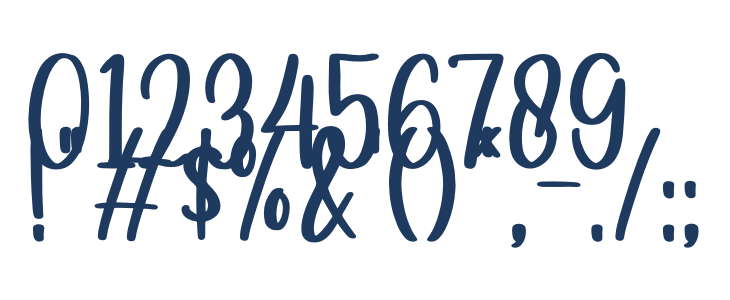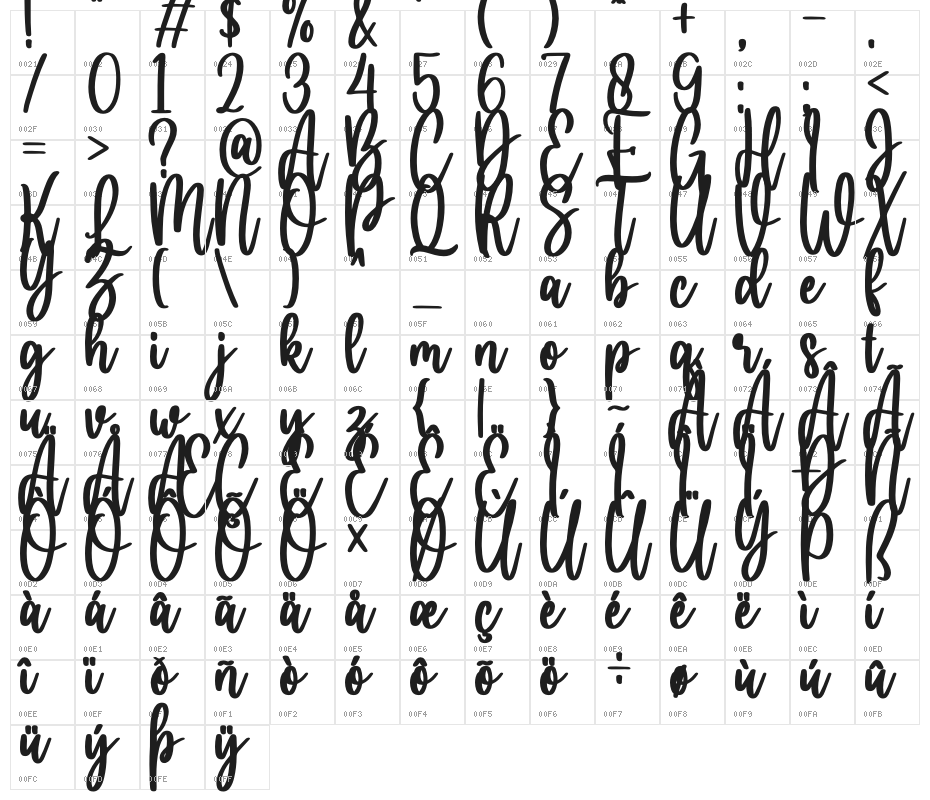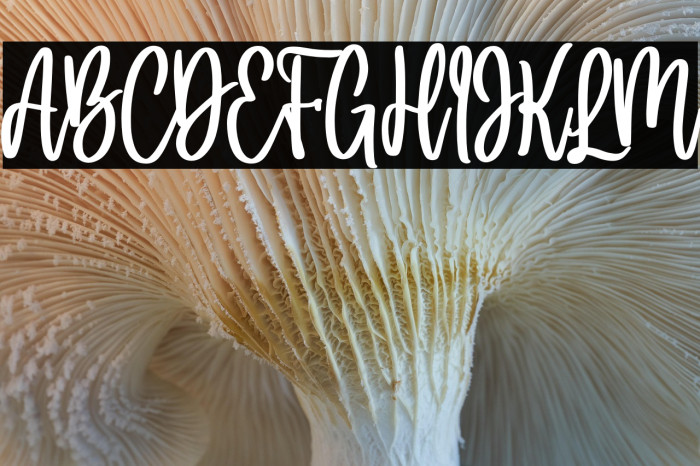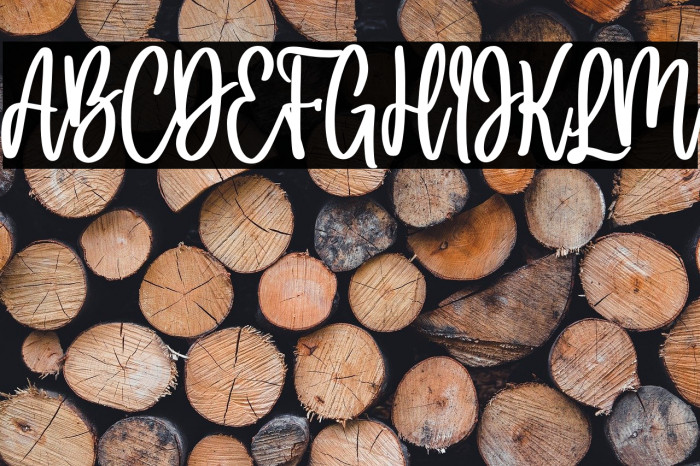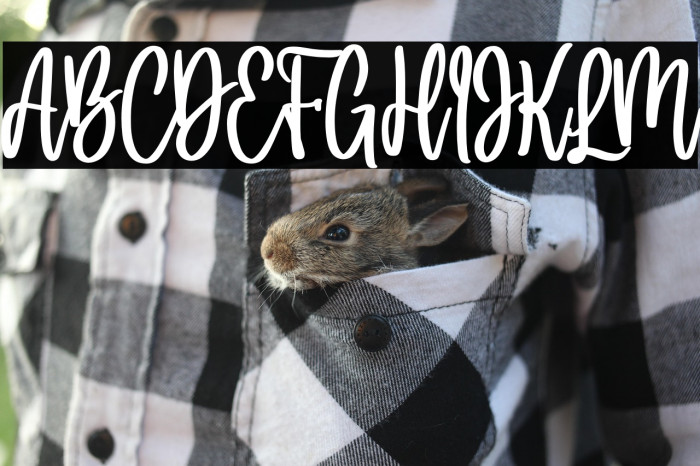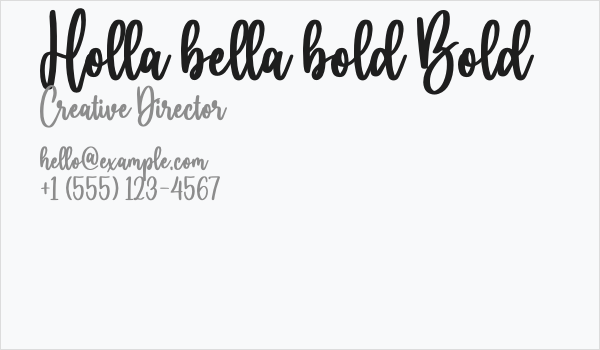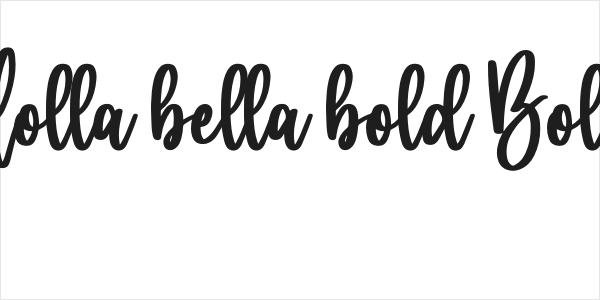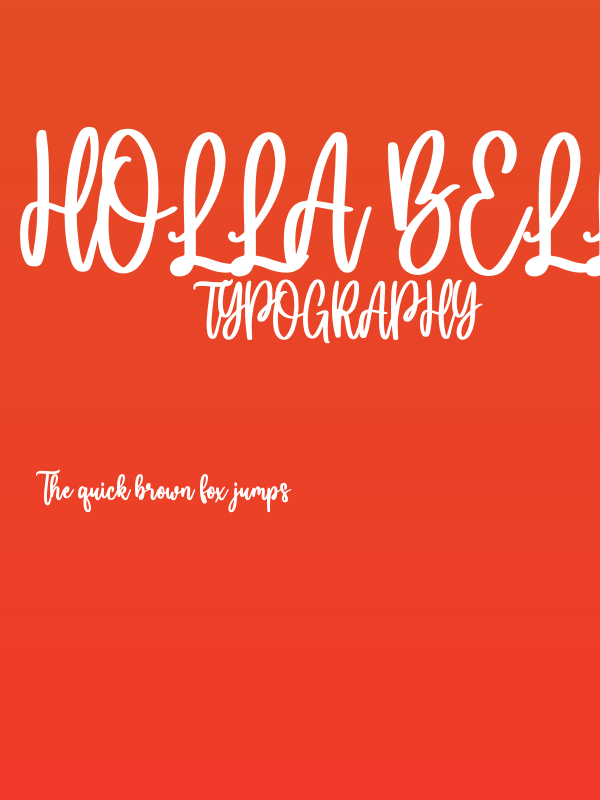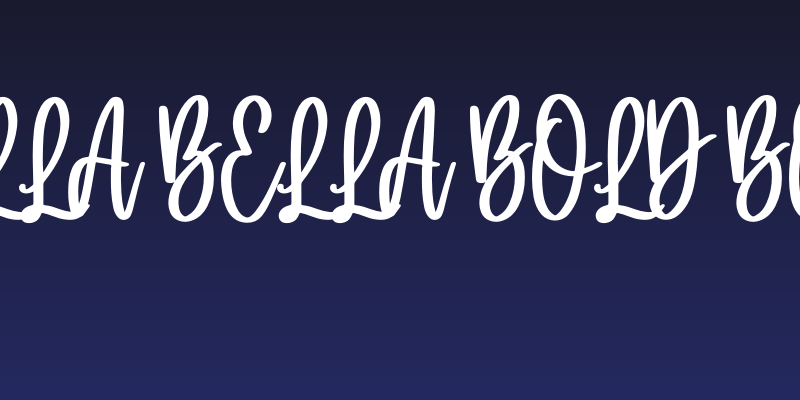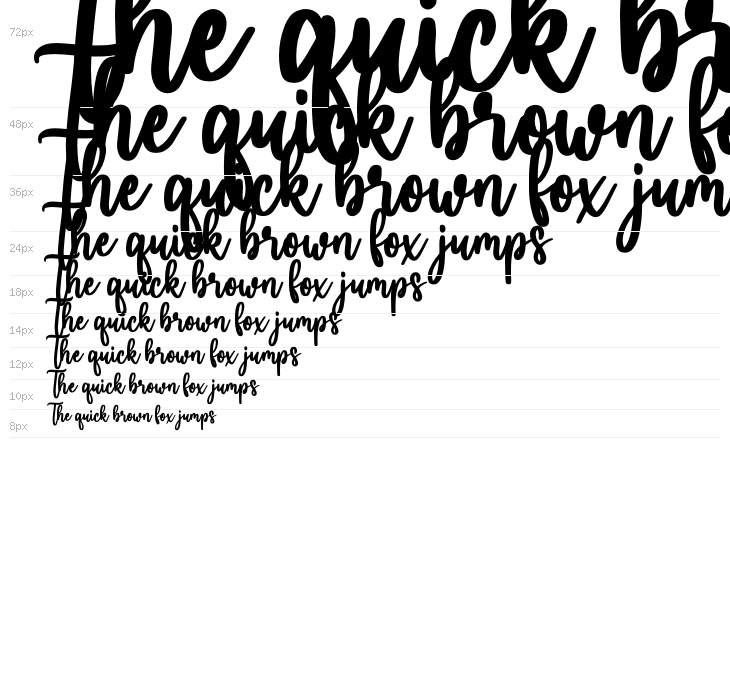
Holla bella bold Bold Font
Holla bella bold Bold Description
This font features a bold, expressive script style with a handwritten feel. The letters are connected, creating a fluid and dynamic appearance. The uppercase characters are tall and slightly narrow, while the lowercase letters maintain a consistent flow with rounded edges. Numbers are clear and legible, matching the overall boldness of the alphabet. Special characters are creatively integrated, maintaining the playful and energetic vibe of the font. This style is perfect for making a statement, with its thick strokes and lively curves.
Use CaseLogos, Headlines, Invitations
Proposed ProjectsIdeal for branding, invitations, greeting cards, and social media graphics where a personal and energetic touch is desired.